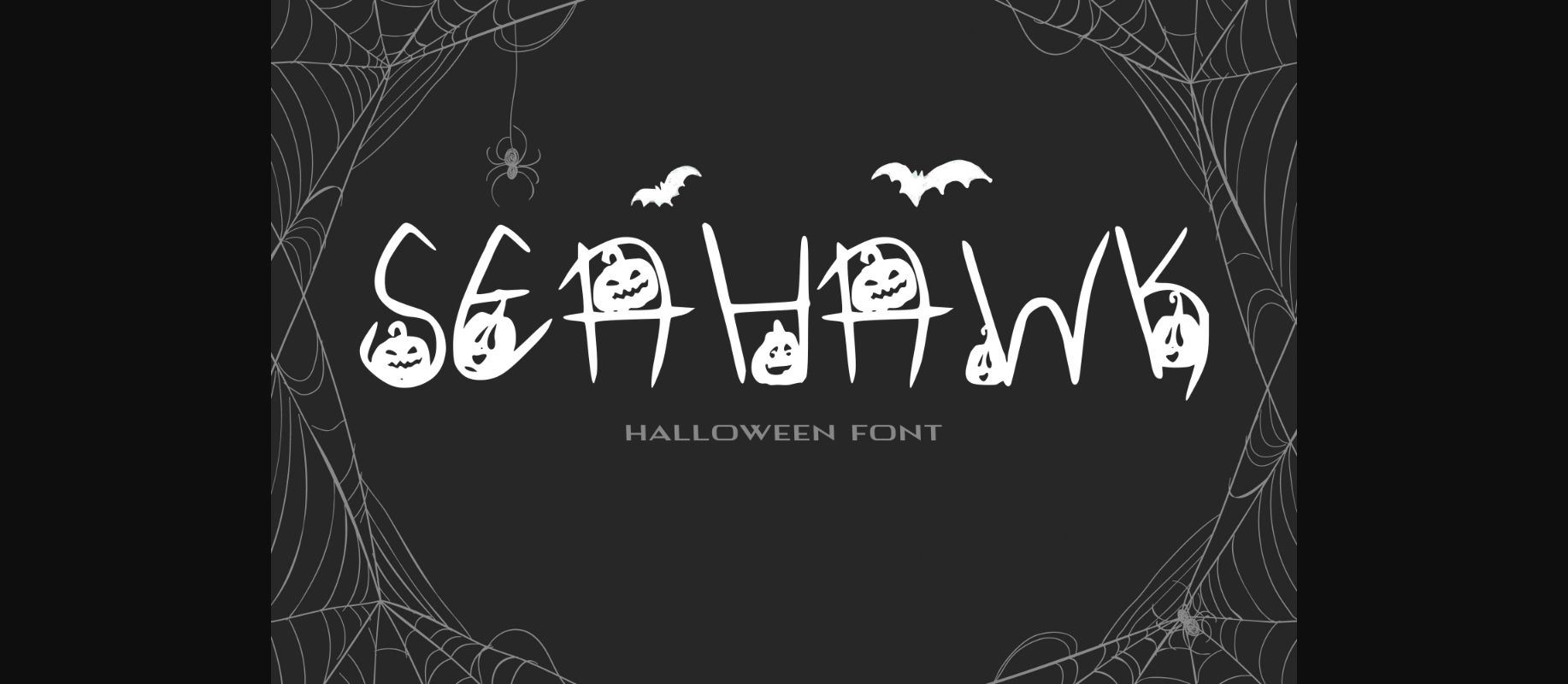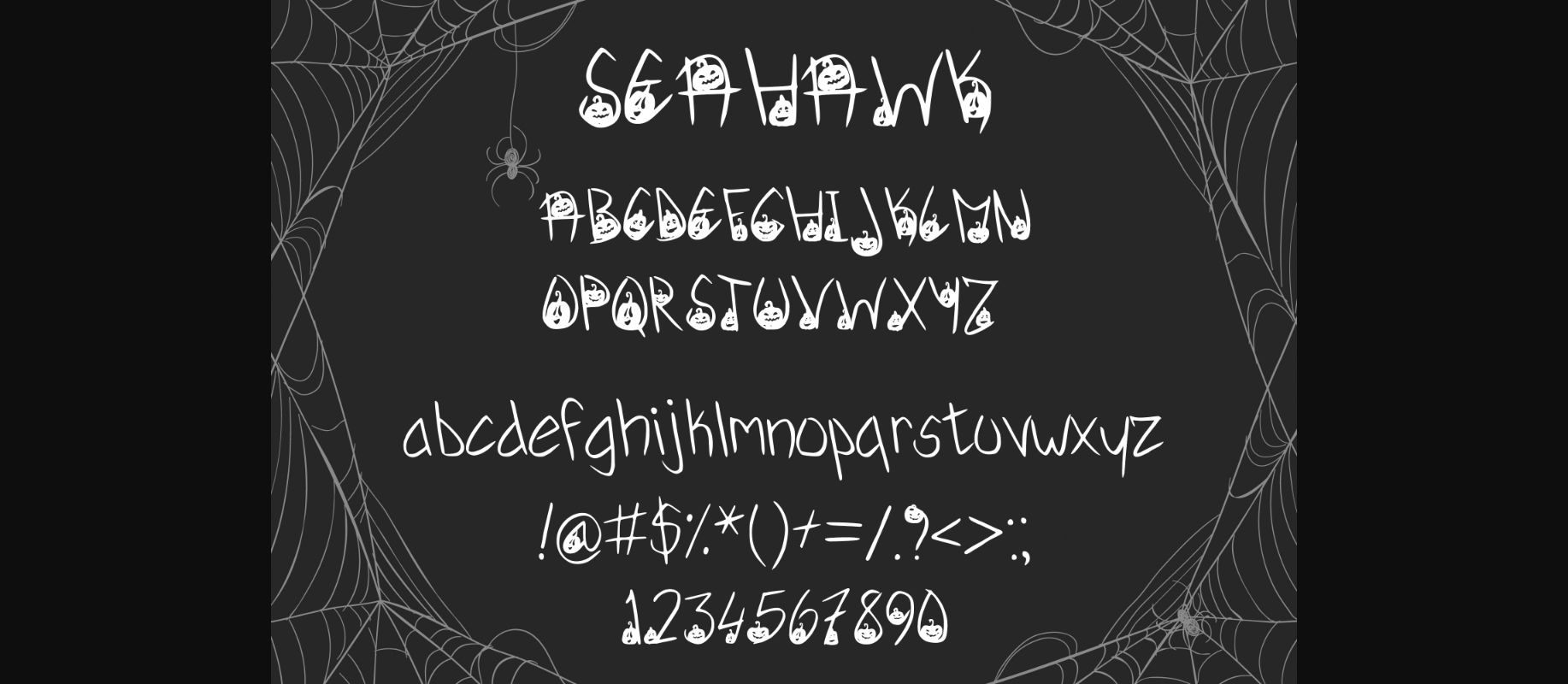
HomeDecorative FontsSeahawk Font Decorative Fonts Seahawk Font FacebookTwitterPinterestWhatsApp 1 of 4 ... Seahawk Font Poster 2... Seahawk Font Poster 3... Seahawk Font Poster 4... About Seahawk Font Seahawk is an incredibly unique decorative font, featuring pumpkins as ornaments. Distinct and quirky, this font will elevate each of your Halloween themed ideas! DOWNLOAD NOW People also explored Sunday Letterhythm Font Christmas Font Floral Font Cheesecake Font Amantha Font Margaretha Font Losteria Script Font Bouteilles 342 0 TagsSeahawkSeahawk Font Previous articleSinister FontNext articleSilhouettesque Font LEAVE A REPLY Cancel reply Comment: Please enter your comment! Name:* Please enter your name here Email:* You have entered an incorrect email address! Please enter your email address here Website: Save my name, email, and website in this browser for the next time I comment. Personal Use Free Mowgli Personal Use Free Read more about this font Concre Personal Use Free Read more about this font Angelia Personal Use Free Read more about this font Hunting Font Personal Use Free Read more about this font BLOG Using Fonts in Digital Marketing: Tips to Strengthen Your Brand Identity In the realm of digital marketing, every visual element plays a crucial role in shaping a brand's identity, and fonts are no exception. The... Top 7 Google Fonts Alternatives for Faster and Privacy-Friendly Web Design (2025) The 10 Best Handwriting Fonts to Add Personality to Your Designs Free vs Paid Fonts: Why Investing in Premium Fonts Is Worth It